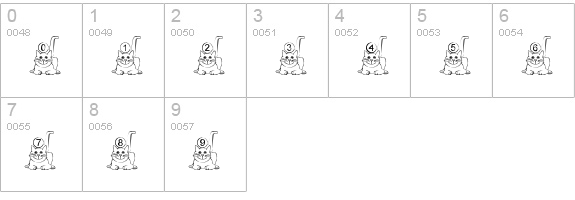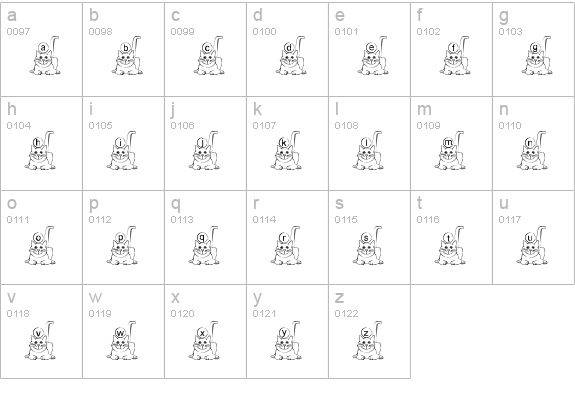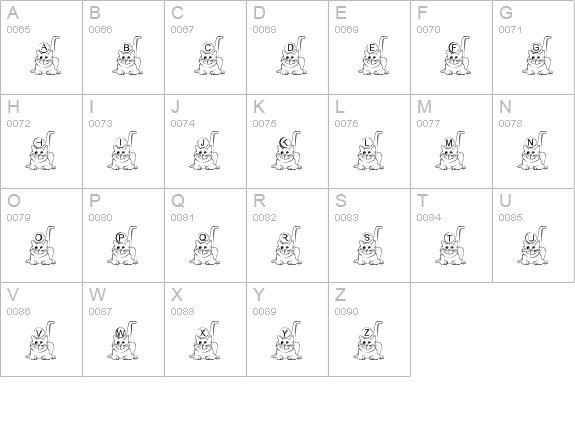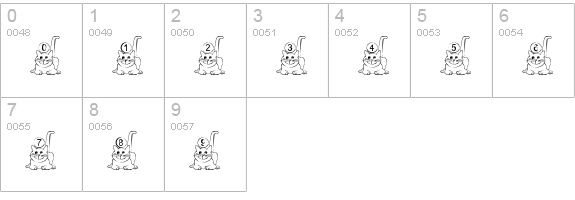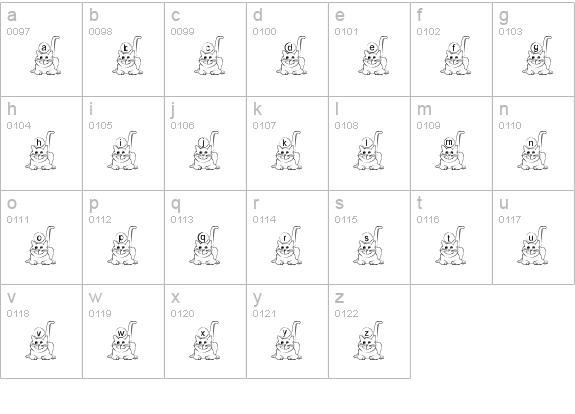
Introducing Ali-Cat font, a charming and whimsical typeface that brings a touch of playfulness to any design project. With its elegant curves and unique letterforms, Ali-Cat is perfect for adding a dash of personality to invitations, posters, logos, and more. This versatile font is ideal for projects that require a fun and creative touch. What's even better is that Ali-Cat font is completely free to download at FontsMarket.com. So, whether you're a seasoned designer looking to add a new font to your collection or a hobbyist searching for the perfect typeface for your next project, Ali-Cat has got you covered. Download it today and let your creativity shine with this delightful and free font!